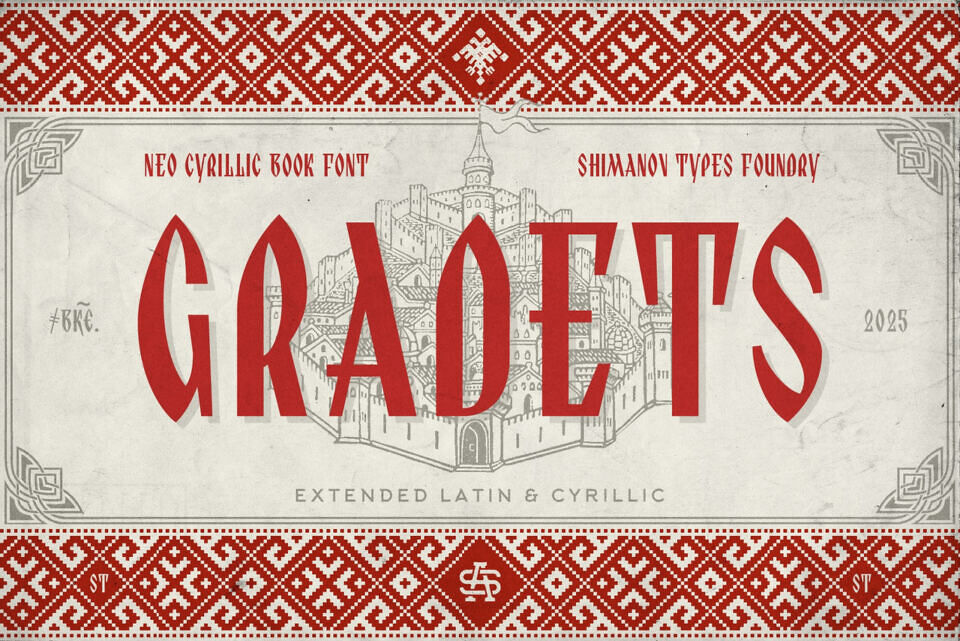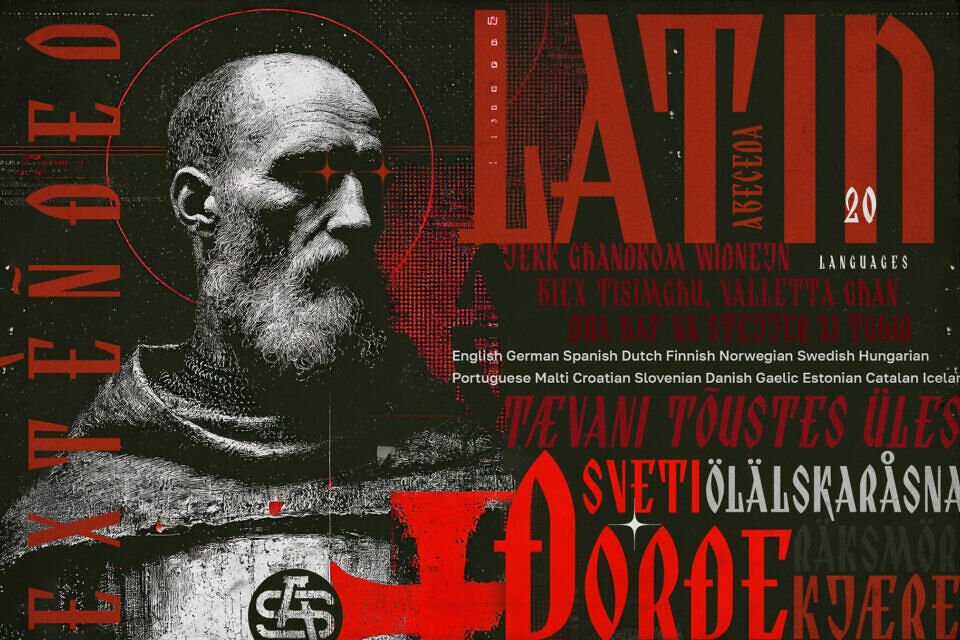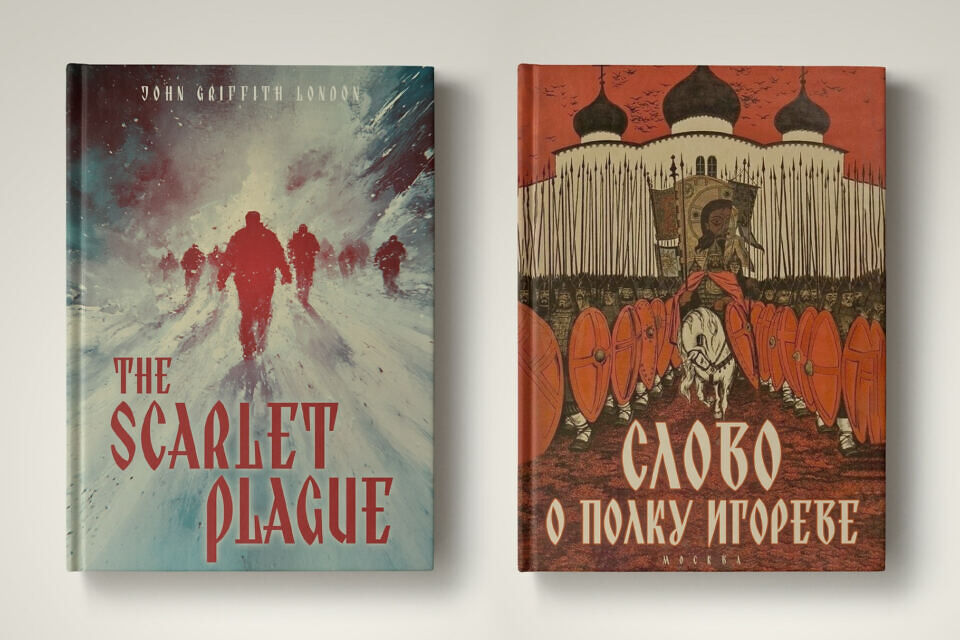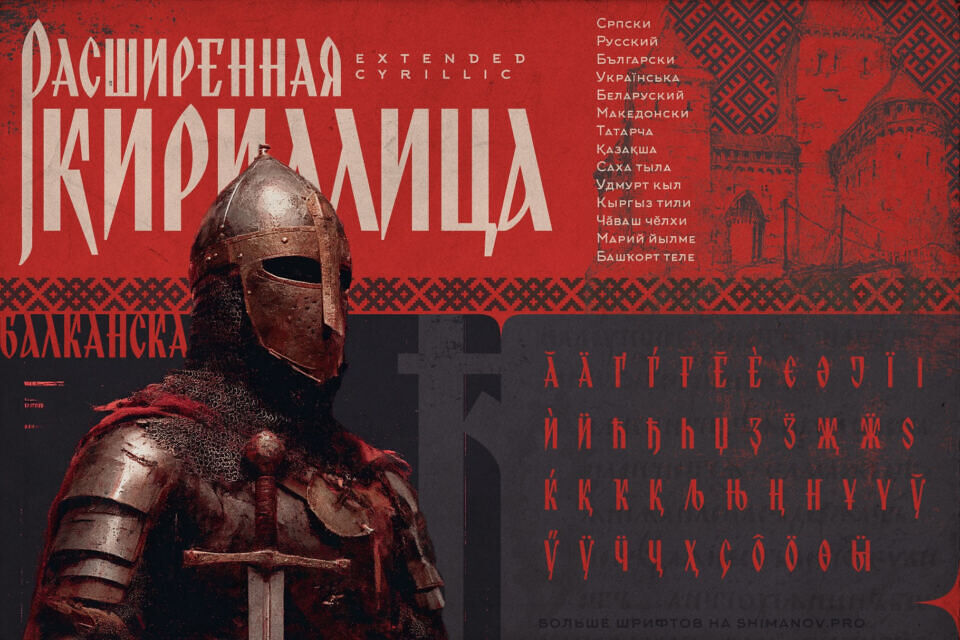
ST-Gradets Font
Gradets is a display typeface inspired by the rich legacy of historical Balkan Cyrillic scripts. It bridges the spirit of medieval Slavic manuscripts with the demands of contemporary book design. Crafted in the Neo-Slavic aesthetic, Gradets doesn’t merely replicate ancient forms—it reimagines them, infusing each letter with profound historical authenticity and vivid character.
Organic proportions and a delicate balance between archaic charm and legibility make this typeface an ideal choice for publications where atmosphere, cultural depth, and authenticity matter. Despite its historical roots, Gradets is a truly international typeface: it supports a wide range of European languages, including both Cyrillic and Latin scripts, making it well-suited for multilingual and cross-cultural projects.